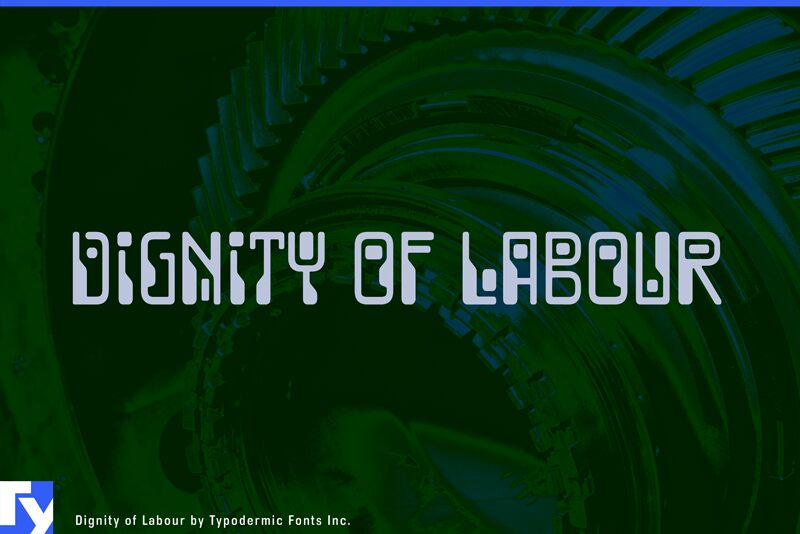
1999s Dignity of Labour is an over-the-top parody of computer oriented fonts of the late 1960s. Spacing and kerning has been redone. Accents have been improved and more languages are covered. More punctuation and symbols have been added. The lack of precision on many characters has been dealt with. Fractions and numerical ordinals are now included. Vertical metrics have been maxed out for better web performance.